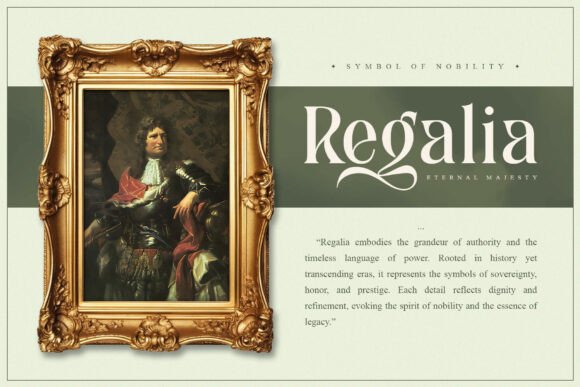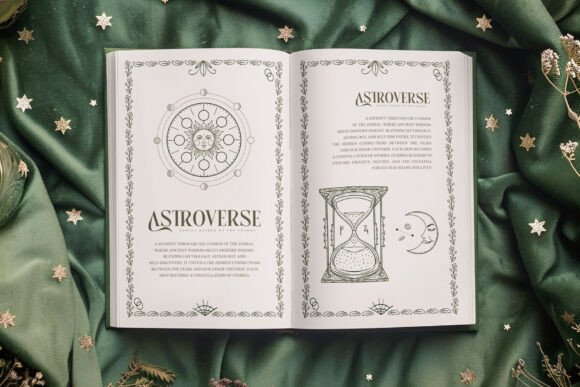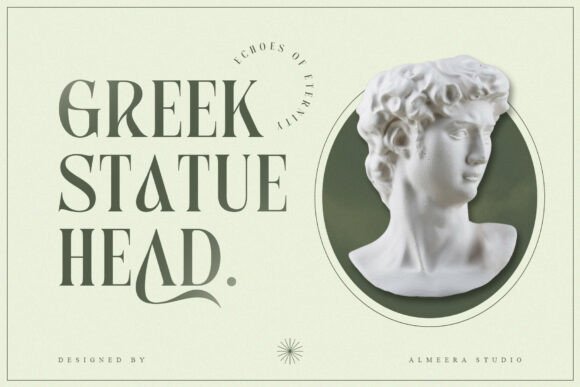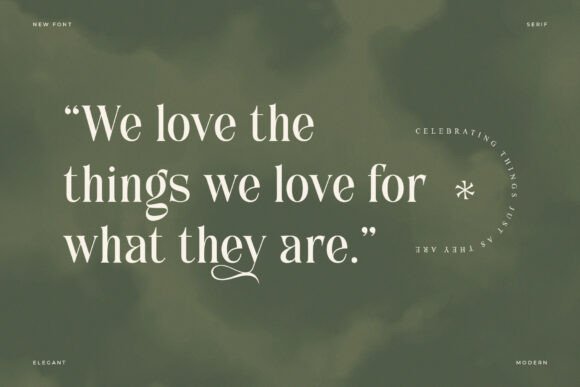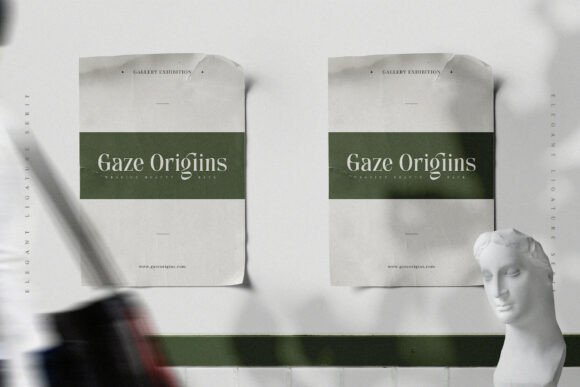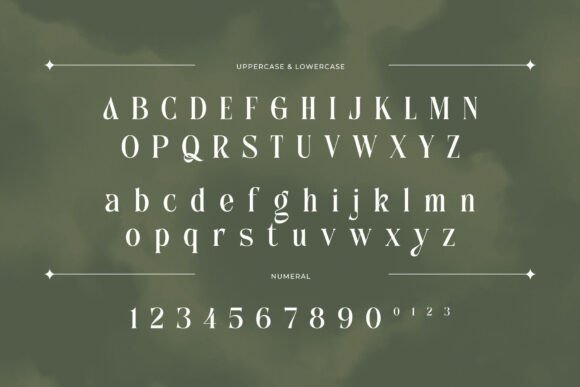
Bringing Timeless Elegance to Your Designs with Anchika Font
I’ll never forget the time I was working on a luxury branding project for a high-end fashion client. I had spent hours pouring over design concepts, but something was missing – the perfect font. That’s when I stumbled upon Anchika, an elegant ligature serif font that instantly elevated my design game. In this article, I’ll share my experience with Anchika, its features, and how to make the most of this stunning typeface in your design projects.
An Honest Review of Anchika Font
What I Love About Anchika ✨
- ✅ Elegant Ligatures: Anchika’s carefully designed ligatures add a touch of sophistication to any design project.
- ✅ Multilingual Support: This font supports multiple languages, making it perfect for global branding projects.
- ✅ PUA Encoding: With PUA encoding, you can access Anchika’s features seamlessly in any design software.
- ✅ Vintage Charm: Anchika’s subtle vintage flair makes it perfect for luxury packaging, editorial layouts, and high-end branding.
While Anchika is an exceptional font, there are a few things to keep in mind:
- 🤔 Learning Curve: With so many OpenType features and glyphs, it may take some time to get familiar with Anchika’s capabilities.
- ⚠️ Limited Use in Body Text: Due to its elegant, refined nature, Anchika might not be the best choice for lengthy body text.
The Story Behind Anchika Font
Anchika was designed with the goal of creating a typeface that combines modern refinement with a touch of vintage charm. Inspired by classic serif fonts, Anchika’s creator aimed to craft a font that would be both elegant and versatile. With its carefully designed ligatures and graceful letterforms, Anchika is the perfect choice for designers seeking to add a touch of sophistication to their projects.
| What is Anchika font best suited for? | Anchika is perfect for high-end branding, editorial layouts, luxury packaging, and fashion projects. |
| Is Anchika a multilingual font? | Yes, Anchika supports multiple languages. |
| Can I use Anchika for body text? | While Anchika is elegant and refined, it may not be the best choice for lengthy body text. It’s better suited for headlines, titles, and short paragraphs. |